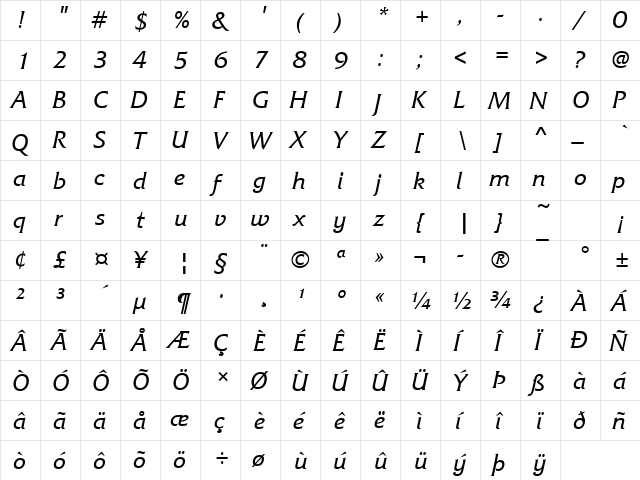
FrodiT Italic
Design Context for FrodiT Typeface
FrodiT is a composed and adaptable typeface that performs quietly and consistently across a wide range of design contexts. Its italic angle brings a sense of urgency and motion to the letterforms.
Pro Tip: Use FrodiT for emphasis, pull quotes, and subheadings where its slanted energy can add rhythm to the layout.